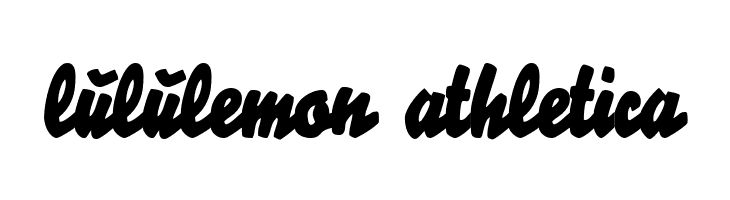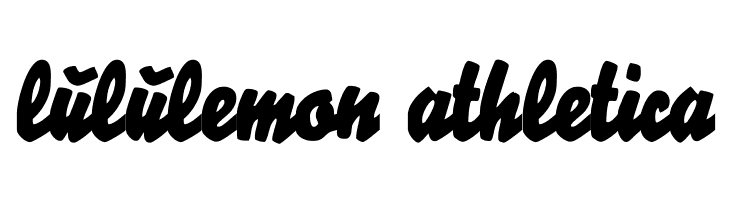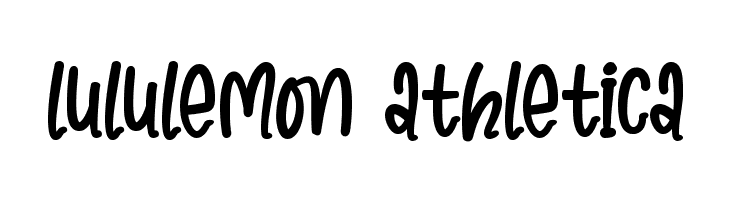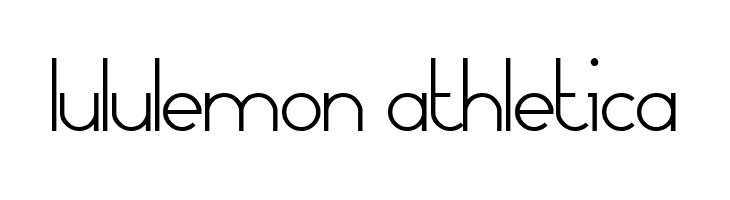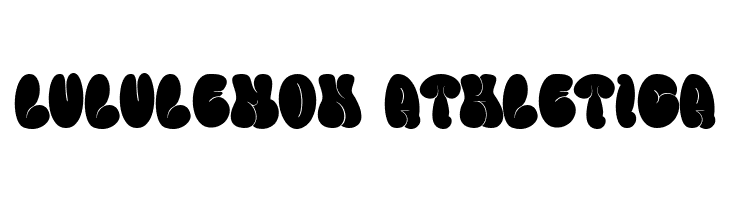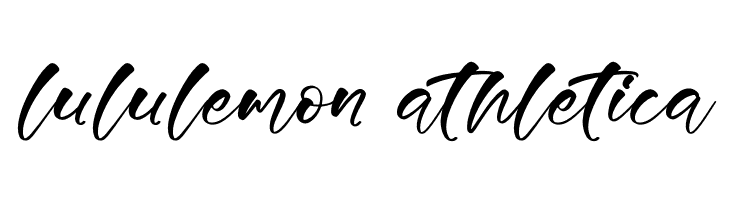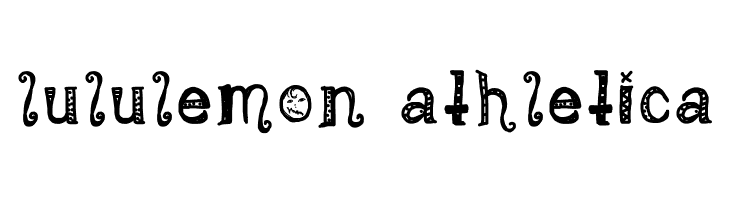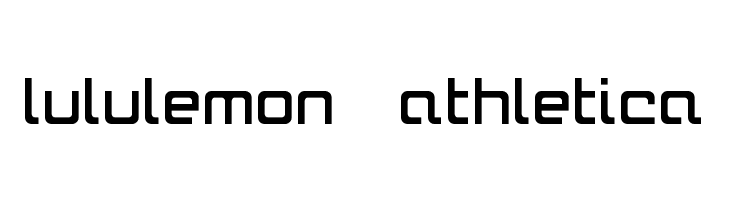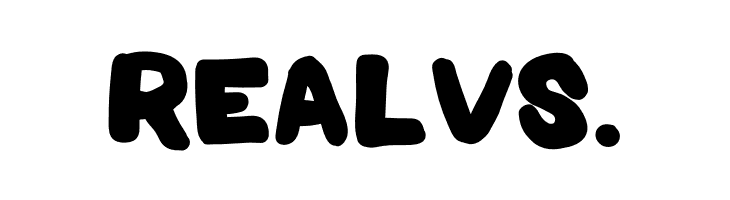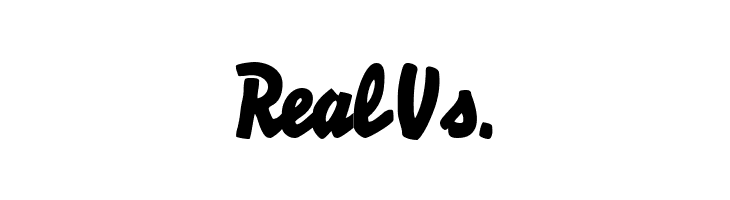
A flowing cursive font with elegant loops and a handwritten appearance.
An elegant script font with intricate swashes and high contrast, perfect for luxurious designs.
( Roger White - web.archive.org/web/20120416090521/www.rogersfonts.org.uk/ )
A clean, elegant font with a modern yet timeless appeal.
A casual, handwritten font with a playful and informal style.
( Charlee Sathiraboot )
A playful, handwritten font with a whimsical and friendly style.
( Charlee Sathiraboot )
A playful, handwritten font with whimsical and charming characters.
A playful, hand-drawn font with bold, irregular strokes and a whimsical style.
( Fonts by 177Studio )
A bold, playful font with rounded, bubble-like characters and a modern, decorative style.
( Fonts by 177Studio )
A bold, playful font with rounded, bubble-like characters for a modern, decorative style.
( Eva Barabasne Olasz - www.etsy.com/ie/shop/digitaltypefaces )
A whimsical script font with heart motifs and elegant, flowing letters.
( Fonts by Sacred Nipple - Brode Vosloo )
A classic serif font with high contrast and elegant strokes.
( Fonts by Daniel Gauthier )
A playful, dot-based font with a modern, digital aesthetic.
A fluid and elegant handwritten font with smooth, continuous strokes.
A bold, angular font with a modern, edgy style.
A geometric, linear font with bold, angular lines and a futuristic aesthetic.
A modern sans-serif font with clean lines and balanced proportions.
A decorative font made of interconnected circles, offering a playful and modern look.
A modern and elegant font with elongated letterforms and striking visual contrast.
An elegant script font with decorative swashes and smooth, connected lowercase letters.
( Fonts by The Scriptorium - Dave Nalle )
An elegant, high-contrast script font with a flowing, cursive style.
A playful, bold handwritten font with rounded, uniform letterforms.
( Fonts by Will L )
A bold, rounded font with a playful and friendly style.
A bold, robust font with rounded edges and a strong presence.
A modern, light sans-serif font with a clean and professional appearance.